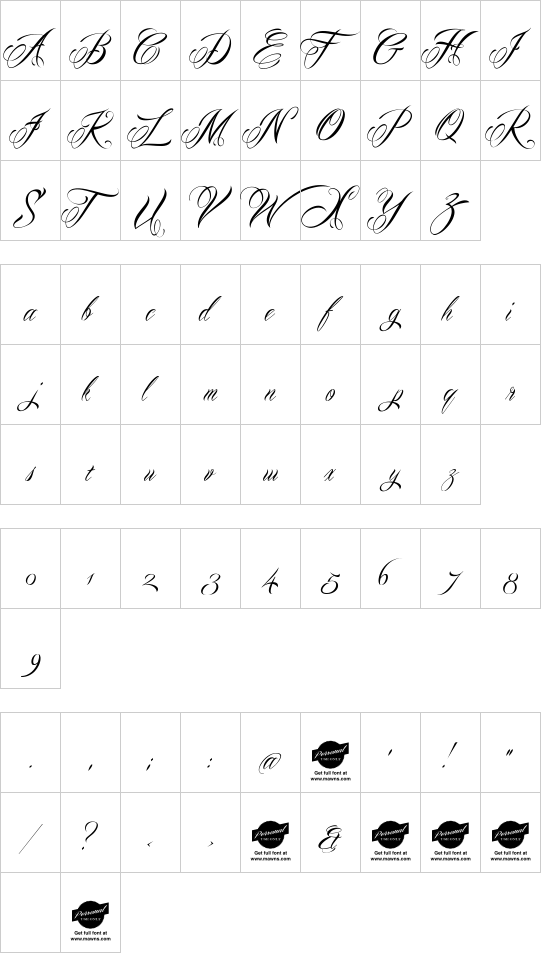
Mardian Demo is a fluid calligraphic script with elegant connected strokes and a graceful slant, carrying a polished handwriting style with a tattoo-ready grace. The smooth thin-to-thick transitions give the letters a confident, flowing rhythm.
That polish suits wedding stationery, boutique branding, quote graphics, and signature-style logos. Mardian Demo is free to download as a TrueType file, and you can preview your own names or phrases to see how the connections flow before downloading.